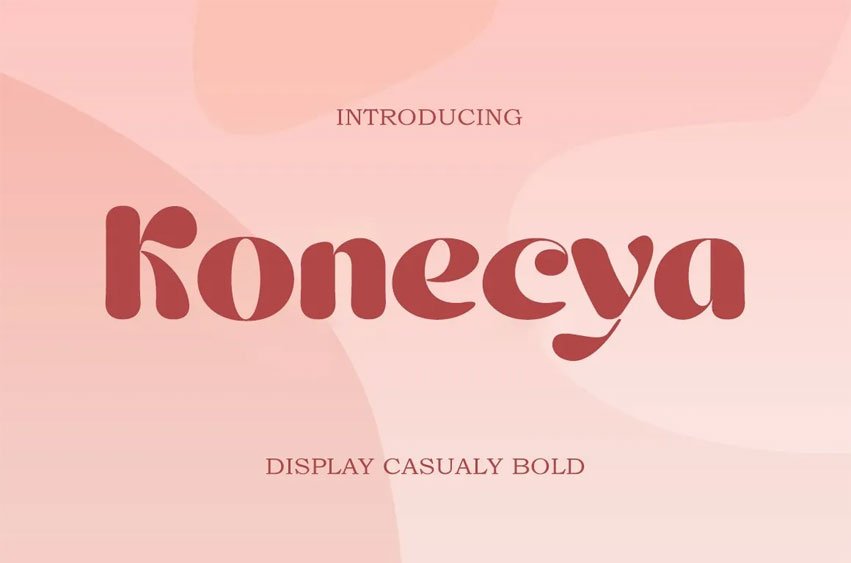
Konecya Font is a fresh and casual bold display font with subtle details. This versatile font has enough character for logos and branding, as well as headlines, apparel, posters, and more. Konecya has the perfect amount of simplicity and subtlety for your next project.
It perfectly represents the retro and vintage aesthetic. I recommend this font for your next logo, invitation, and home decor project that needs a succinct alternative combination touch!